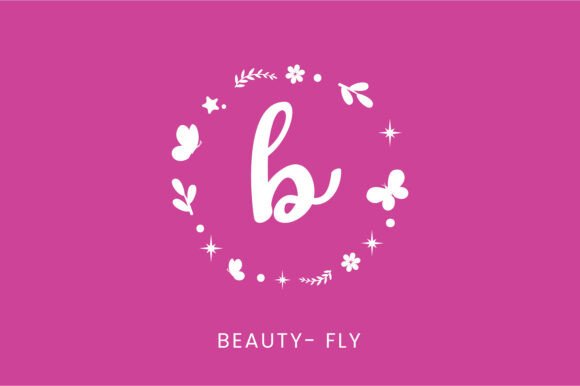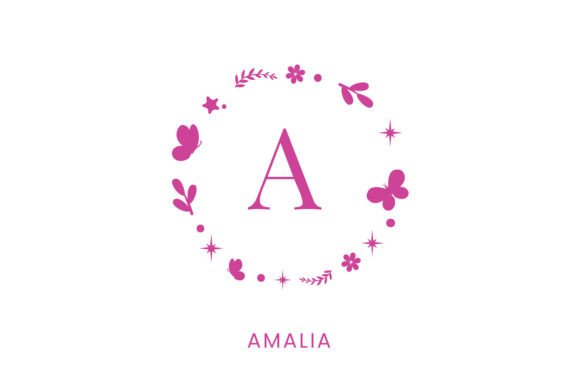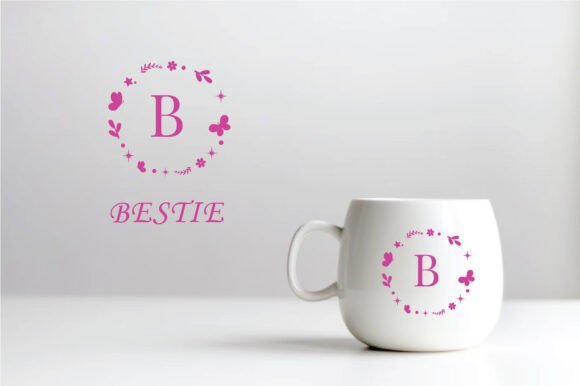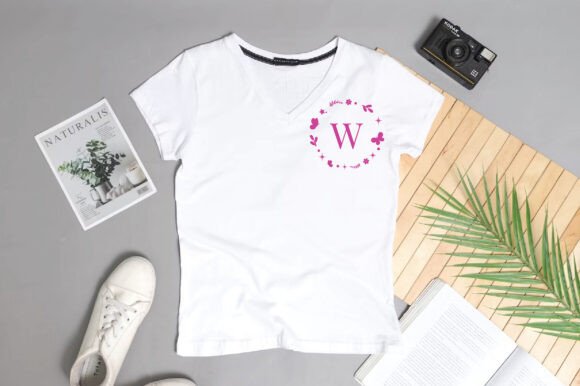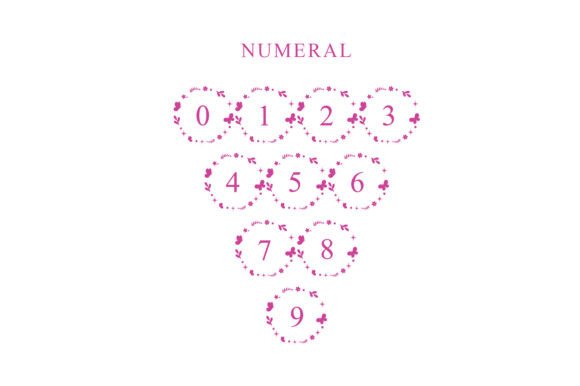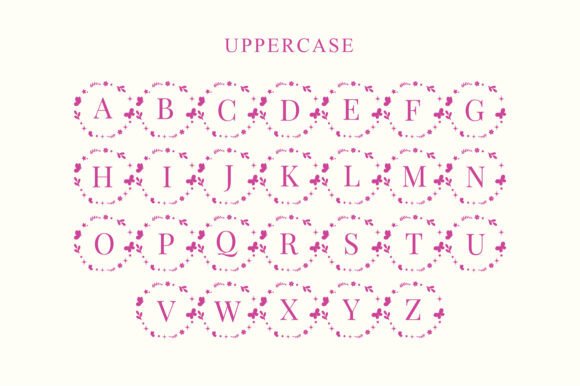
Introducing the Whimsical Circle of Butterfly Font
Are you tired of using the same old fonts for your craft projects, stickers, and logos? Look no further! The Circle of Butterfly Font is here to add a touch of playfulness and elegance to your designs. This decorative font features a unique and imaginative approach, where each letter is framed by a circle of butterflies, stars, leaves, and whimsical ornaments.
A Font Like No Other
The Circle of Butterfly Font is a one-of-a-kind typeface that combines elegance and playfulness. The uppercase letters boast a sophisticated serif design, while the lowercase letters feature a cute and curly script. What sets this font apart, however, is the intricate circle of ornaments that surrounds each letter. The butterflies, stars, and leaves add a whimsical touch that’s sure to delight.
Whether you’re a designer looking for a unique font for your client’s logo or a crafter searching for the perfect alphabet for your handmade stickers, the Circle of Butterfly Font is an excellent choice. Its versatility and charm make it suitable for a wide range of projects, including:
- Crafts: Add a personal touch to your handmade cards, gift tags, and scrapbook pages.
- Stickers: Create eye-catching stickers for kids’ parties, events, or as a fun way to decorate your laptop or water bottle.
- Logos: Give your business a playful and memorable logo that stands out from the crowd.
- Stationery: Elevate your letter writing with beautifully designed stationery featuring the Circle of Butterfly Font.
Key Features of the Circle of Butterfly Font
Here are some key features that make this font so special:
- Elegant Uppercase Serif: The uppercase letters feature a classic serif design with a touch of sophistication.
- Cute Script Lowercase: The lowercase letters boast a playful and curly script that’s perfect for adding a personal touch to your designs.
- Intricate Ornaments: Each letter is surrounded by a circle of butterflies, stars, leaves, and other whimsical ornaments.
- Playful and Decorative: The font’s playful design makes it perfect for crafty projects, stickers, and other creative endeavors.
Tips for Using the Circle of Butterfly Font
To get the most out of this beautiful font, here are some tips to keep in mind:
- Mix and Match: Combine the Circle of Butterfly Font with other fonts to create a unique and eye-catching design.
- Experiment with Colors: Try out different color schemes to match your brand or project’s aesthetic.
- Add Texture: Add texture to your design by incorporating patterns, glitter, or other effects.
- Keep it Simple: Don’t be afraid to keep your design simple and let the font be the focal point.
The Circle of Butterfly Font is a delightful and versatile typeface that’s perfect for designers and crafters looking to add a touch of whimsy to their projects. With its elegant uppercase serif, cute script lowercase, and intricate circle of ornaments, this font is sure to delight. Whether you’re creating crafts, stickers, logos, or stationery, the Circle of Butterfly Font is an excellent choice. So why not give it a try and see what amazing creations you can come up with?